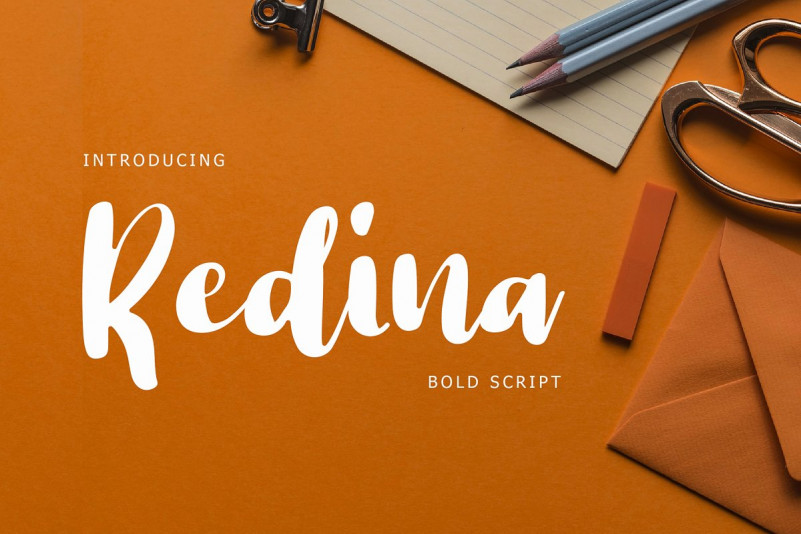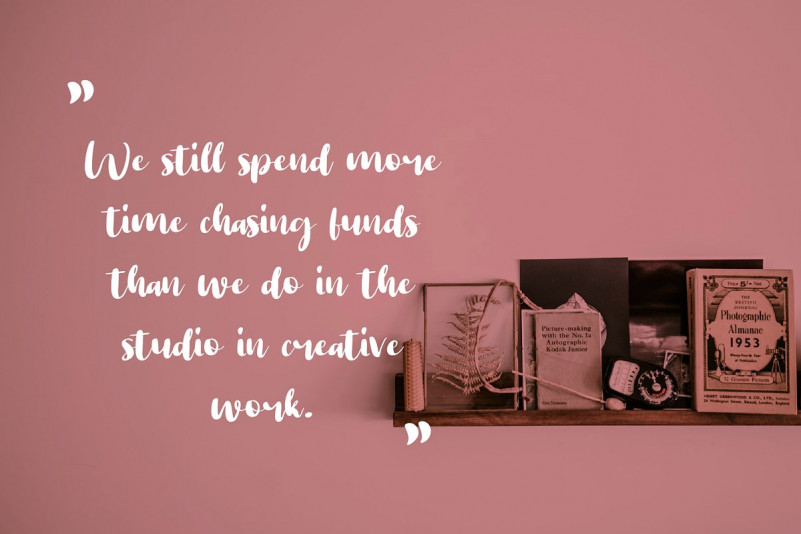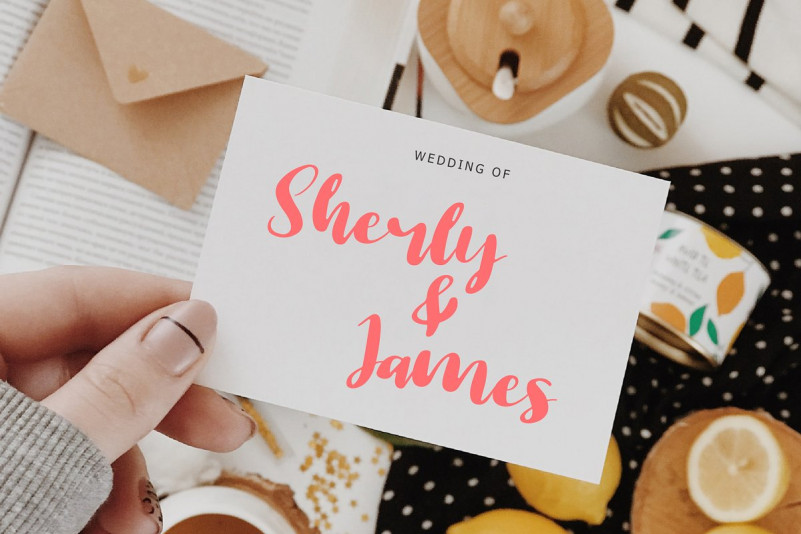
Redina Font
Redina Bold Script Font is a modern look of Bold Script font, can make your text appear elegant, luxurious, and modern!
Redina is perfect for branding projects, logo, wedding designs, social media posts, advertisements, product packaging, T-shirt design, product designs, label, photography, watermark, invitation, stationery, and any projects.